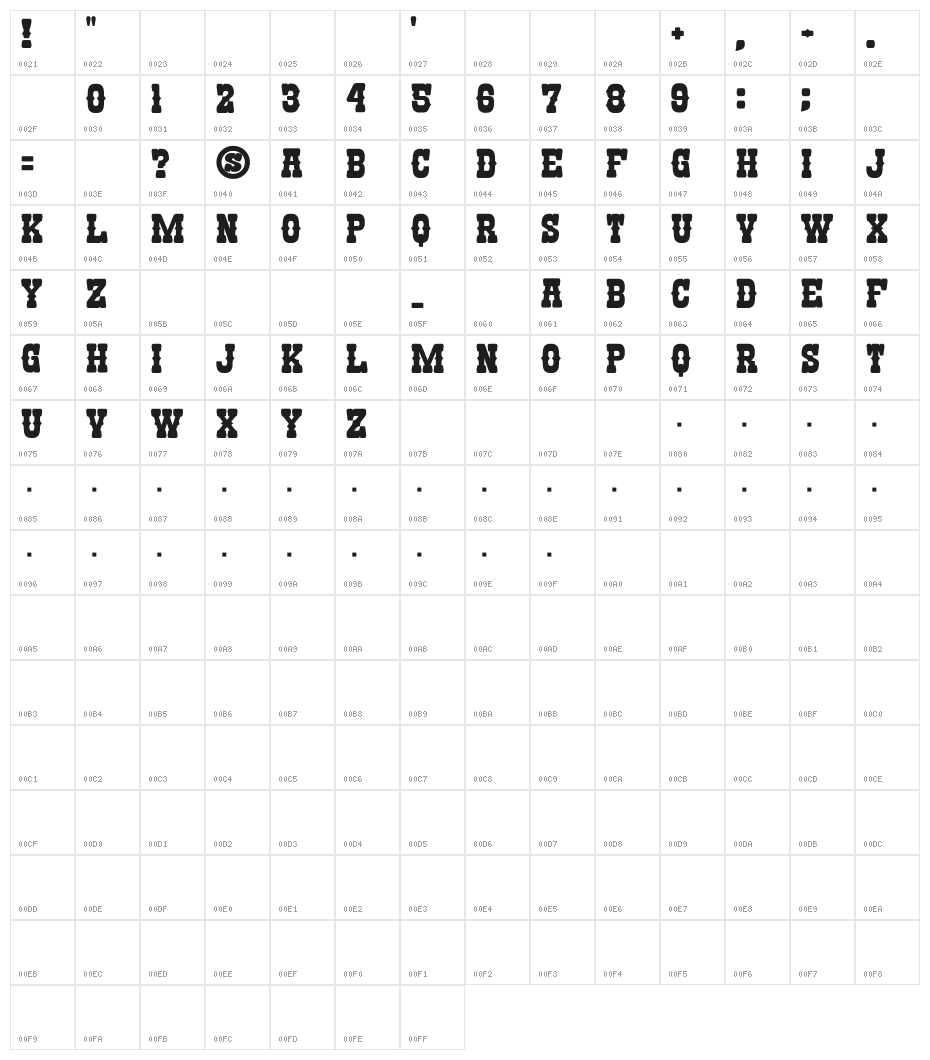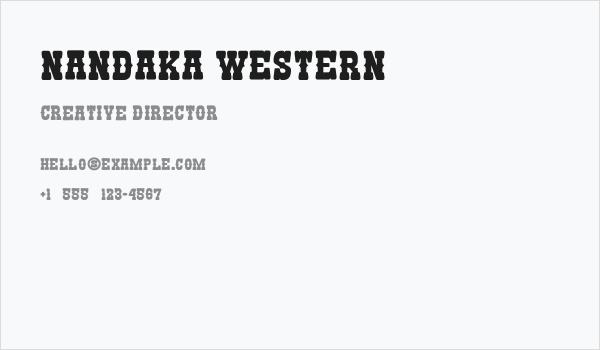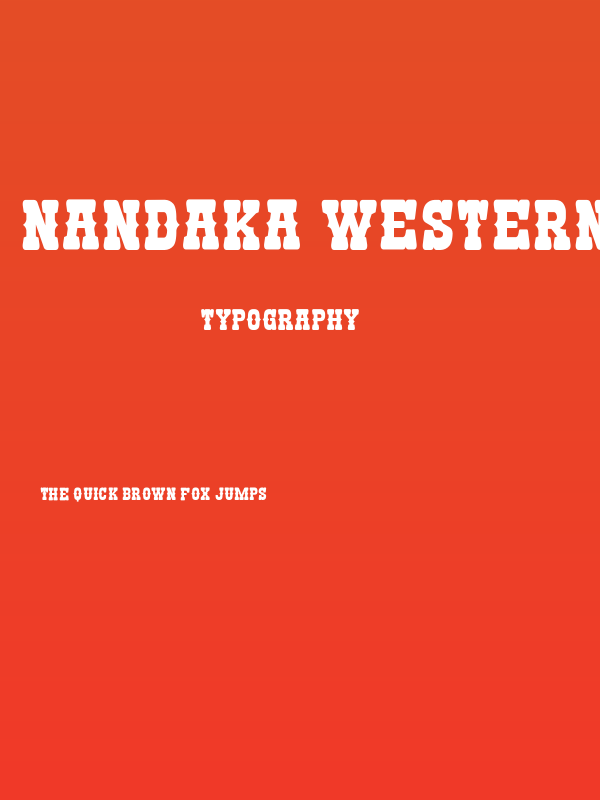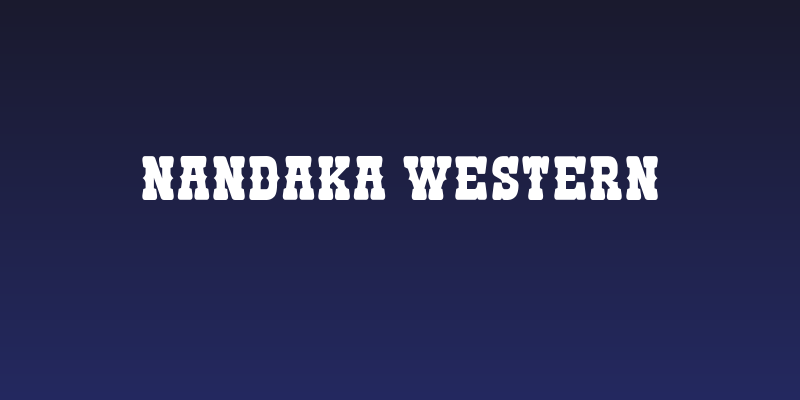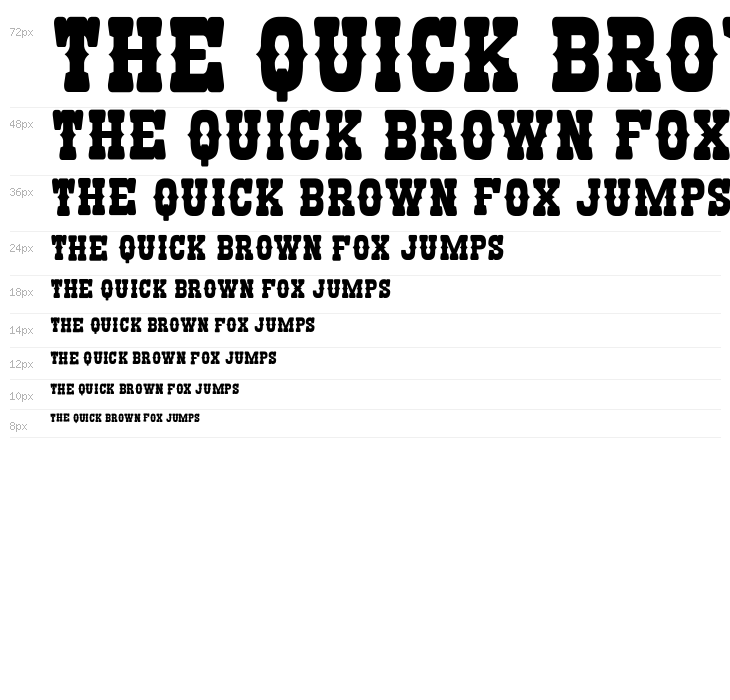
Nandaka Western Font
Nandaka Western Description
This font exudes a bold and rugged aesthetic, reminiscent of the Wild West. Its thick, blocky letters are characterized by pronounced serifs and a strong presence, making it ideal for designs that require a commanding and vintage feel. The uppercase and lowercase letters maintain a consistent style, with a slight variation in size and weight that adds to its charm. The numbers and special characters are equally robust, ensuring a cohesive look across all text elements. The font's unique style is perfect for creating eye-catching headlines, posters, and branding materials that need to convey strength and tradition.
| Proposed Projects | Ideal for Western-themed posters, vintage branding, and bold headlines. |